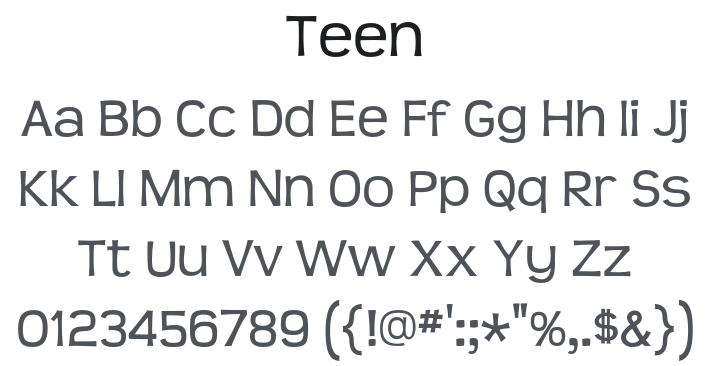
Teen Font Family
About Teen
Teen is a wild, superelliptical display sans-serif with a very tall x-height and casual, rounded letterforms that radiate dashing 1960s personality — bold, smooth curves with a carefree, youthful swagger that feels simultaneously retro and effortlessly modern. Available in Light, Regular, Bold, and Italic. Perfect for lifestyle branding, fashion editorial, music posters, youth-oriented packaging, and any design needing spirited, decade-defining cool.